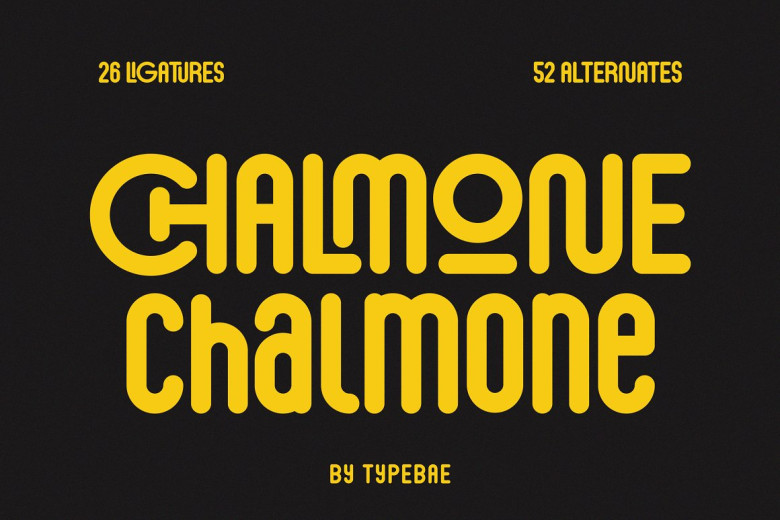
Chalmone Font
Chalmone stands out with its distinctive and bold personality. A condensed sans serif font, it contains 26 unique ligatures as well as alternative underlined styles that add flair. Although designed for larger point sizes, Chalmone still keeps its charm when used at smaller point sizes.
Chalmone Sans Serif Font